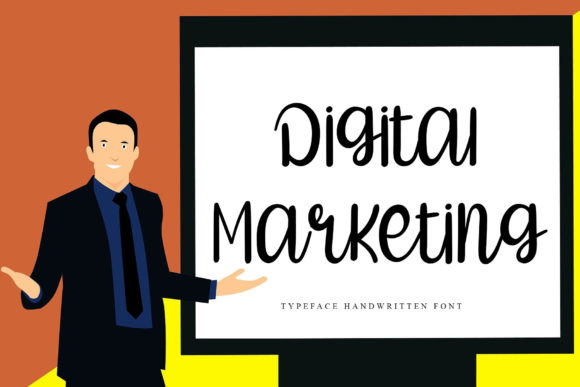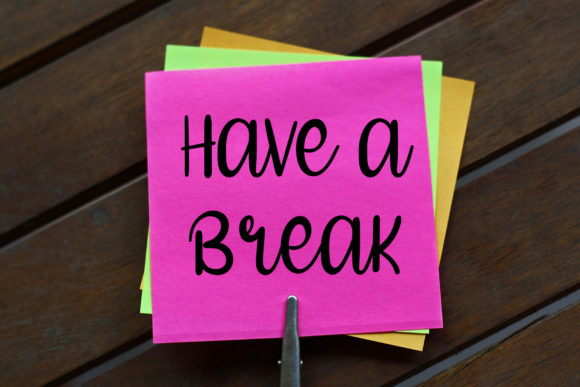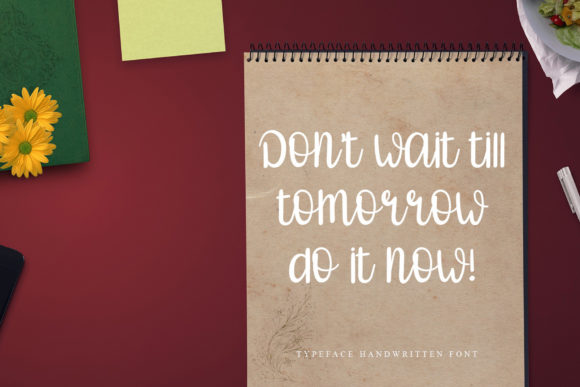
About Supermarket Font
Supermarket is a simple, clean and dainty handwritten font. Cursive and joyful, this font will be ideal for writing wedding invitations, cards, branding, printing or any other design that may need a relaxed touch!